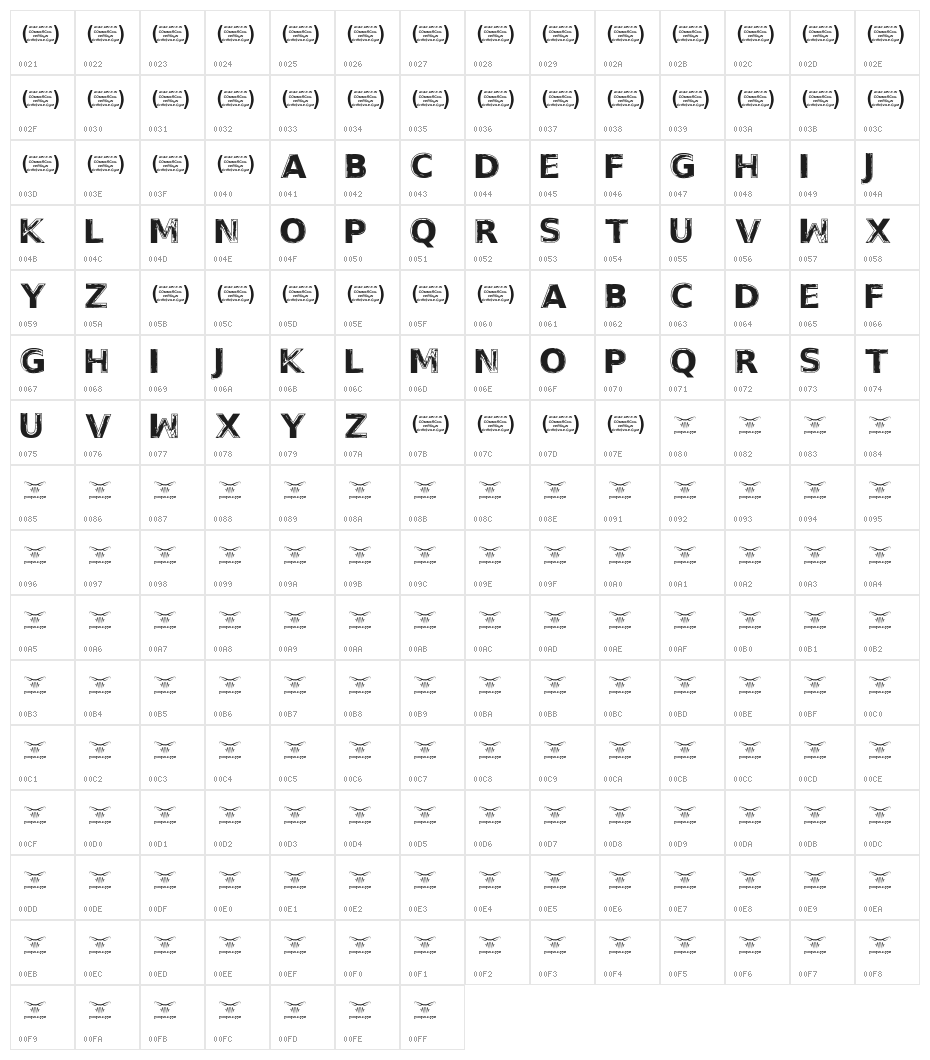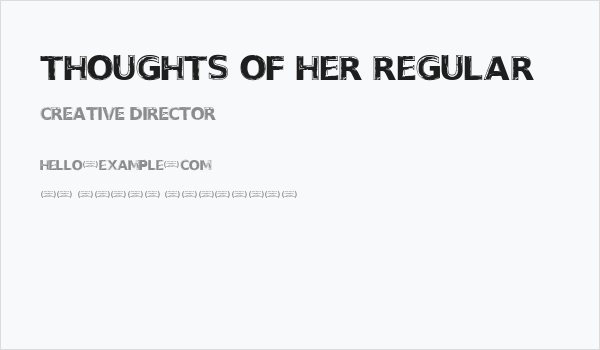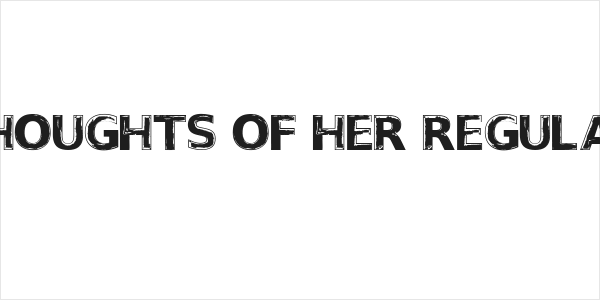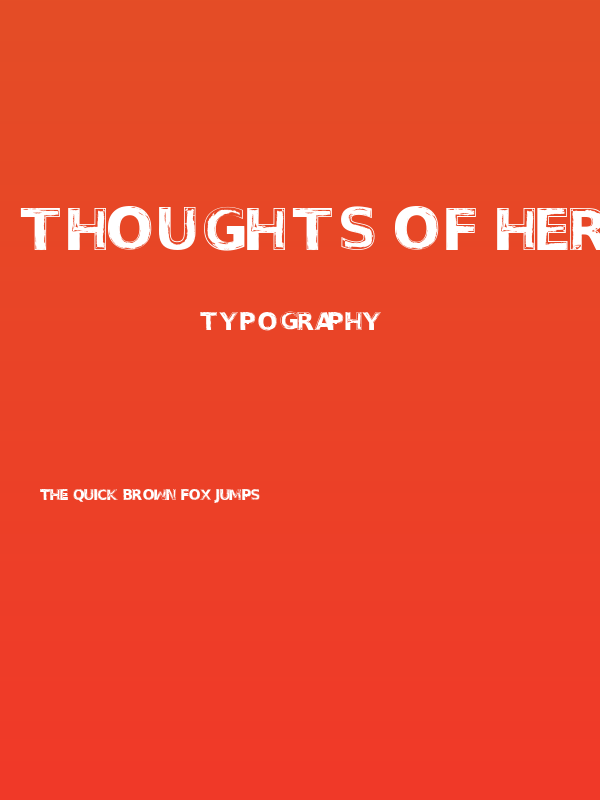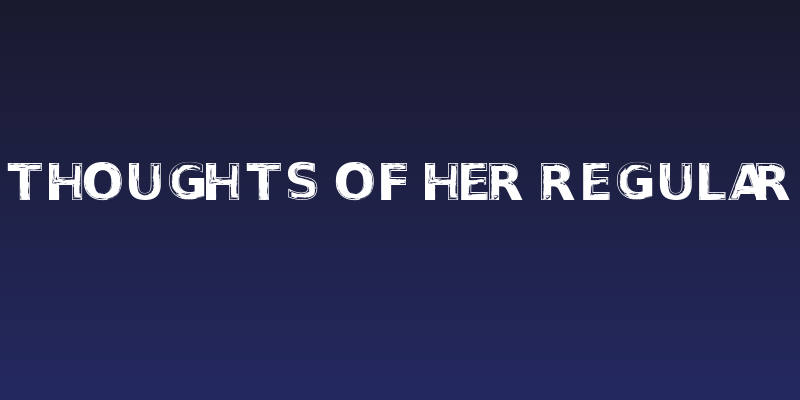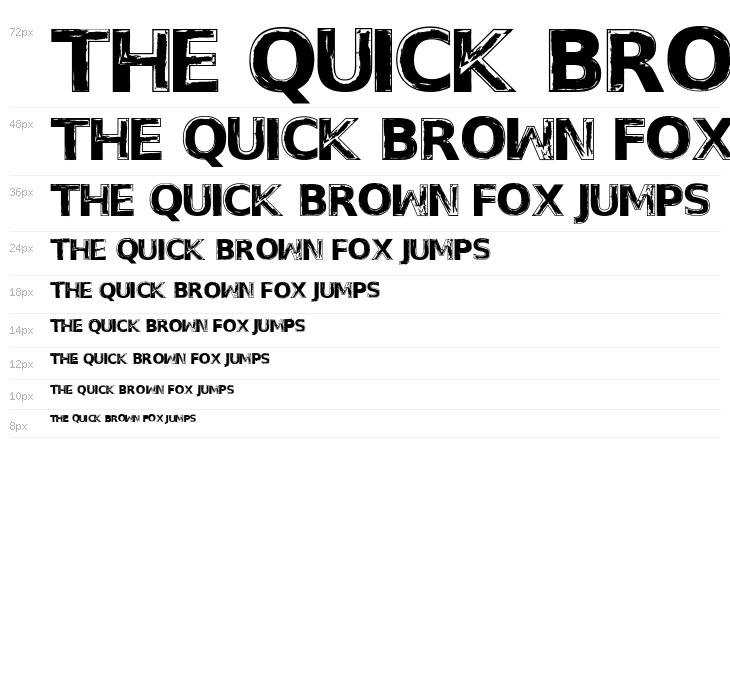
Thoughts of Her Regular Font
Thoughts of Her Regular Description
This font features a bold, distressed style with a rough, textured appearance that gives it a unique, grunge aesthetic. The uppercase letters are prominent and eye-catching, making it ideal for impactful designs. The characters have a consistent width, and the distressed effect varies slightly across different letters, adding to its dynamic look. The font's boldness and texture make it suitable for projects that require a strong visual presence, such as posters, album covers, or branding materials that aim to convey a sense of edginess or rebellion.
| Overall Style | Grunge, Edgy |
| Proposed Projects | Ideal for posters, album covers, branding materials, and any project needing a strong, edgy visual impact. |